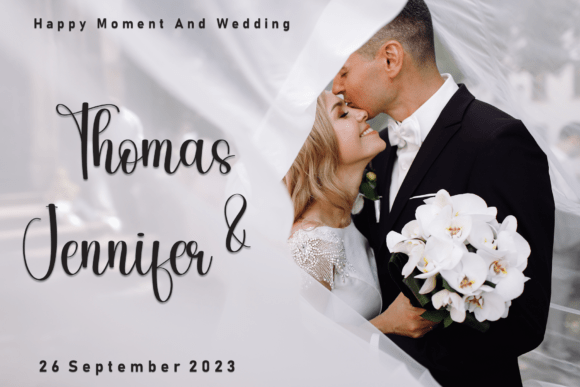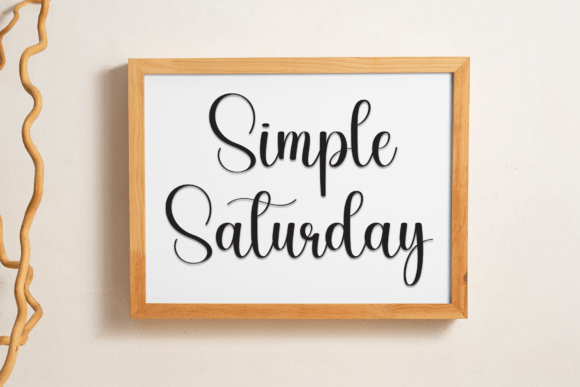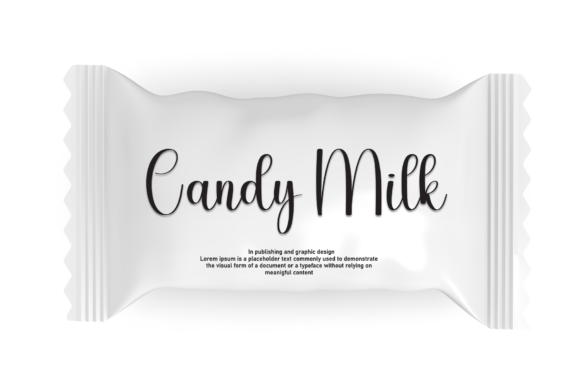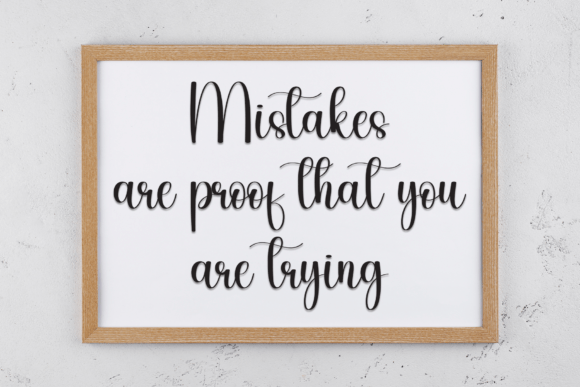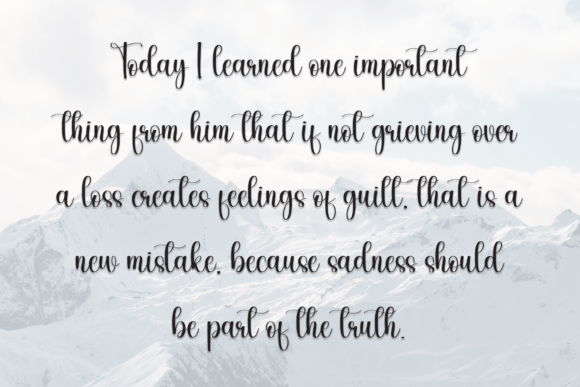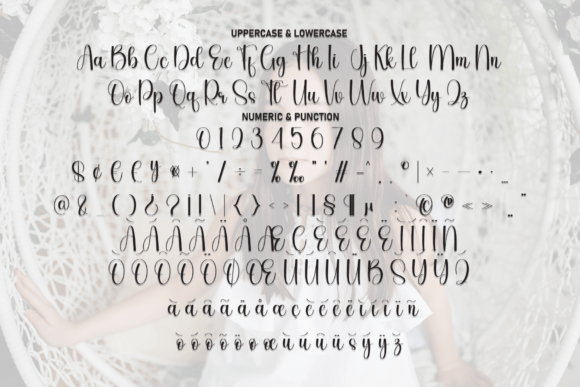
Unlock the Secret to Captivating Design with Angelina Font
Have you ever been working on a design project, pouring over sketches and ideas, when suddenly a spark of inspiration strikes? Perhaps it’s a conversation with a loved one, a fleeting glimpse of beauty in nature, or a chance encounter with a work of art that sets your creative wheels in motion. For many designers, that moment is the catalyst for something truly special – a design that touches hearts and sparks joy.
Angelina Font is that spark, a meticulously hand-painted display font that radiates warmth and charm, effortlessly captivating audiences and infusing an irresistible charisma into every design it graces. Whether you’re creating dreamy wedding invitations or affectionate greeting cards, this enchanting font is the perfect addition to elevate your design to new heights.
For designers seeking to add an effervescent pop of joy to their work, Angelina Font holds the secret. Its vivacious nuances and creative embellishments make it a valuable asset, sure to bewitch your onlookers and leave a lasting impression.
Angelina Font Key Features
- Font Family: Angelina is a script font, designed to resemble handwriting.
- Unique Characteristics: Angelina font features elegant, flowing lines and subtle flourishes, giving it a luxurious and sophisticated feel.
Designer Review: Angelina Font
Overall, I think the Angelina Font has some lovely qualities, but also a few areas where it falls short. Let’s dive in and take a closer look.
Beautiful cursive script
Expressive and elegant feel
Works well for titles and headings
Lack of versatility for body text
May be too ornate for some designs
Limited language support
While the Angelina Font is a stunning addition to any design project, it’s not without its limitations. If you’re looking for a beautiful, elegant script for titles and headings, it’s a great choice. However, if you need a font that can handle body text or multiple languages, you may want to consider other options. With a bit of creative workarounds, the Angelina Font can still be a great asset in the right project.